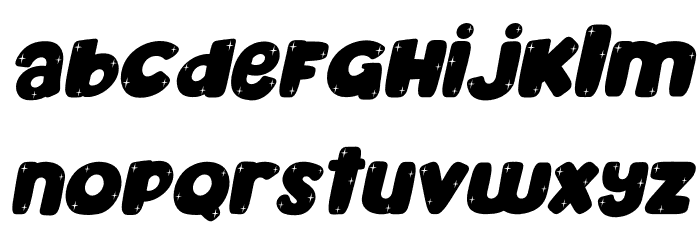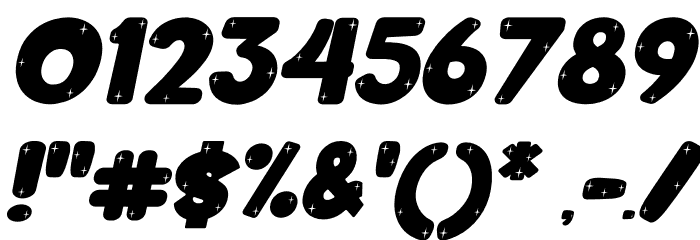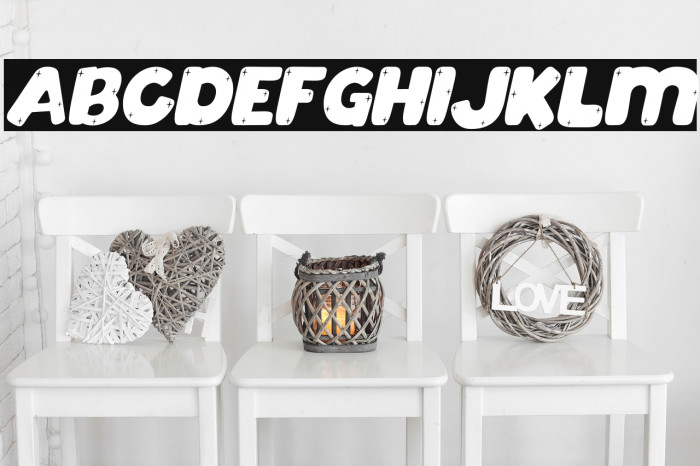
Mahoney Twinkle Tilted Font
This playful and bold font features a unique, tilted design with a whimsical touch. Each character is adorned with small star-like accents, adding a sparkling effect that enhances its decorative appeal. The letters are rounded and thick, providing a strong visual presence. The font maintains a consistent weight throughout, with smooth curves and a slightly condensed appearance. Its distinctive style makes it ideal for projects that require a fun and eye-catching typeface.
A bold, playful font with star accents and a tilted design.
- Proposed Projects: Ideal for children's books, party invitations, playful branding, and creative posters.